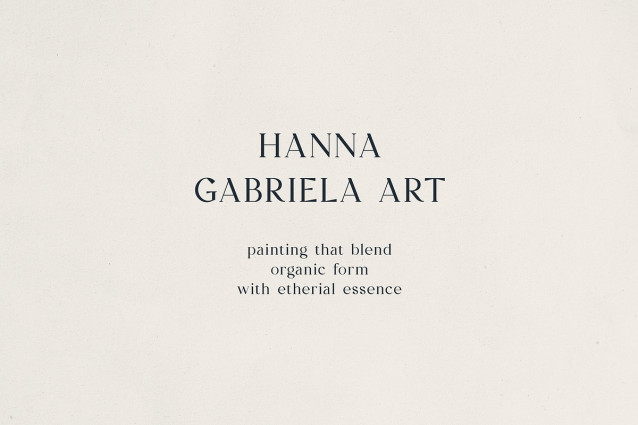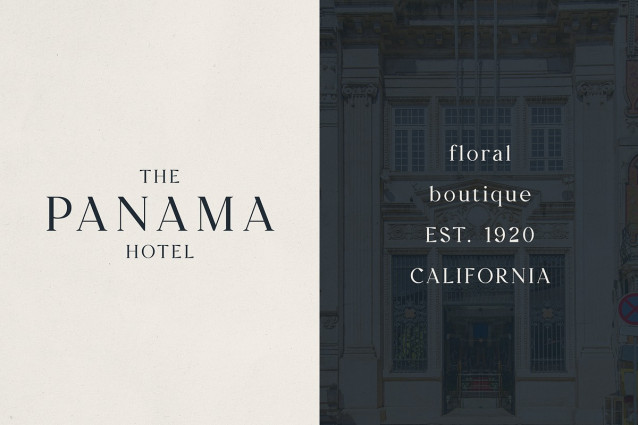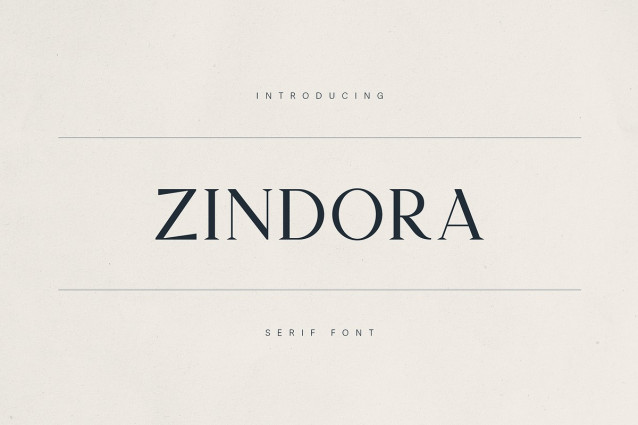
Zindora Font
Zindora Font a high-contrast serif font that beautifully blends refined elegance with contemporary minimalism. With its graceful curves, sharp serifs, and editorial flair, Zindora is designed to elevate branding, packaging, logos, invitations, and editorial layouts with timeless sophistication.